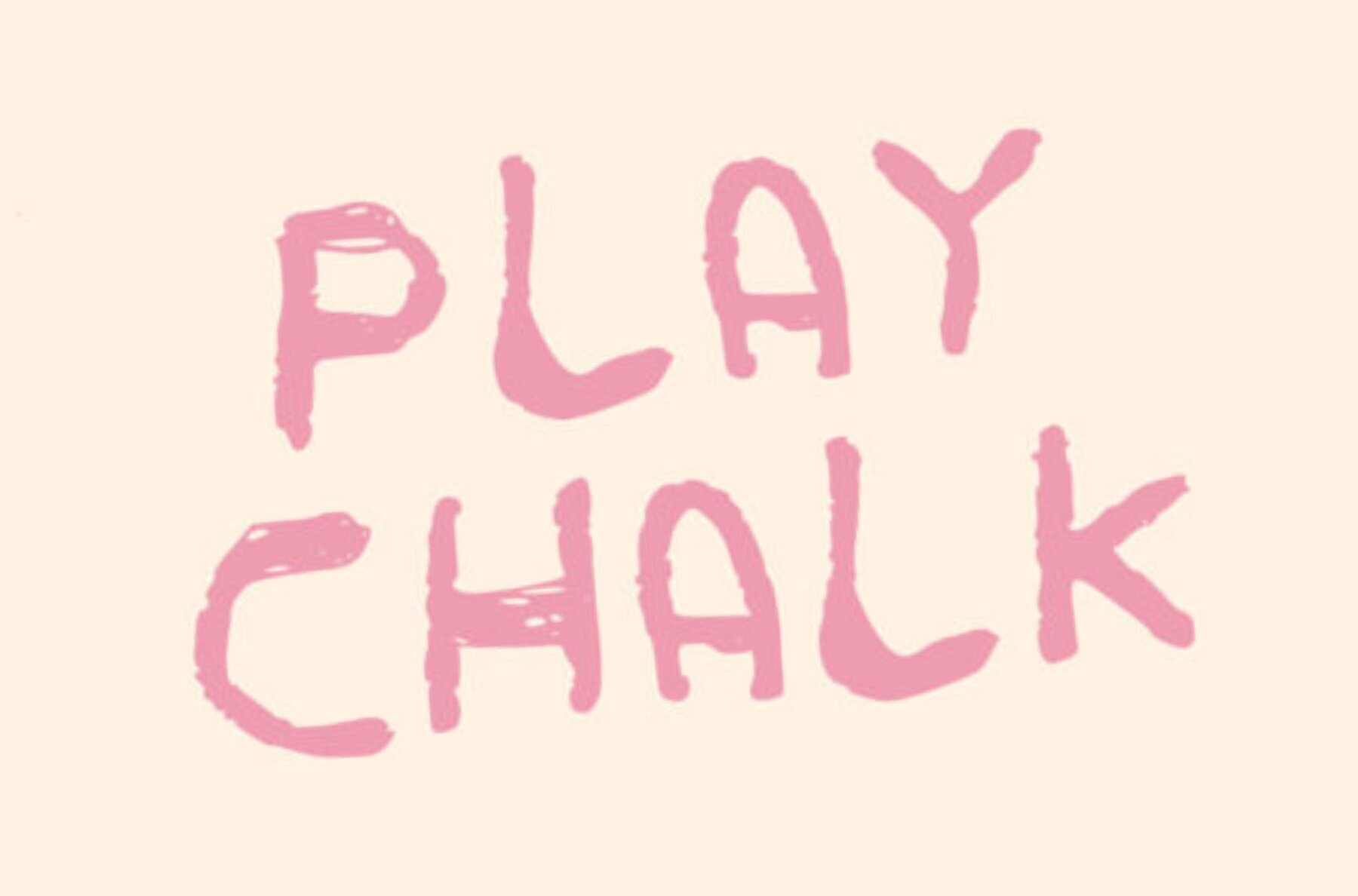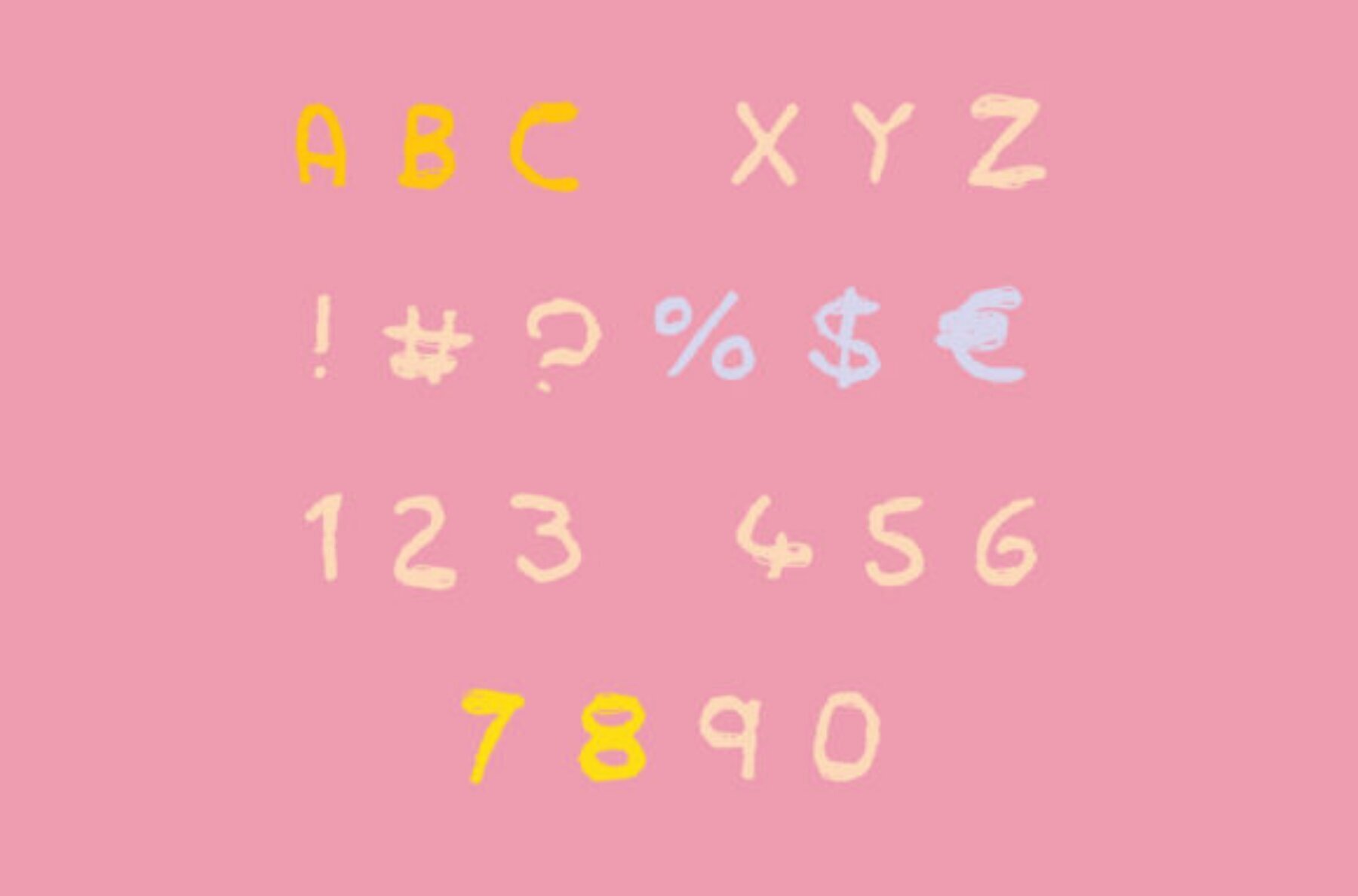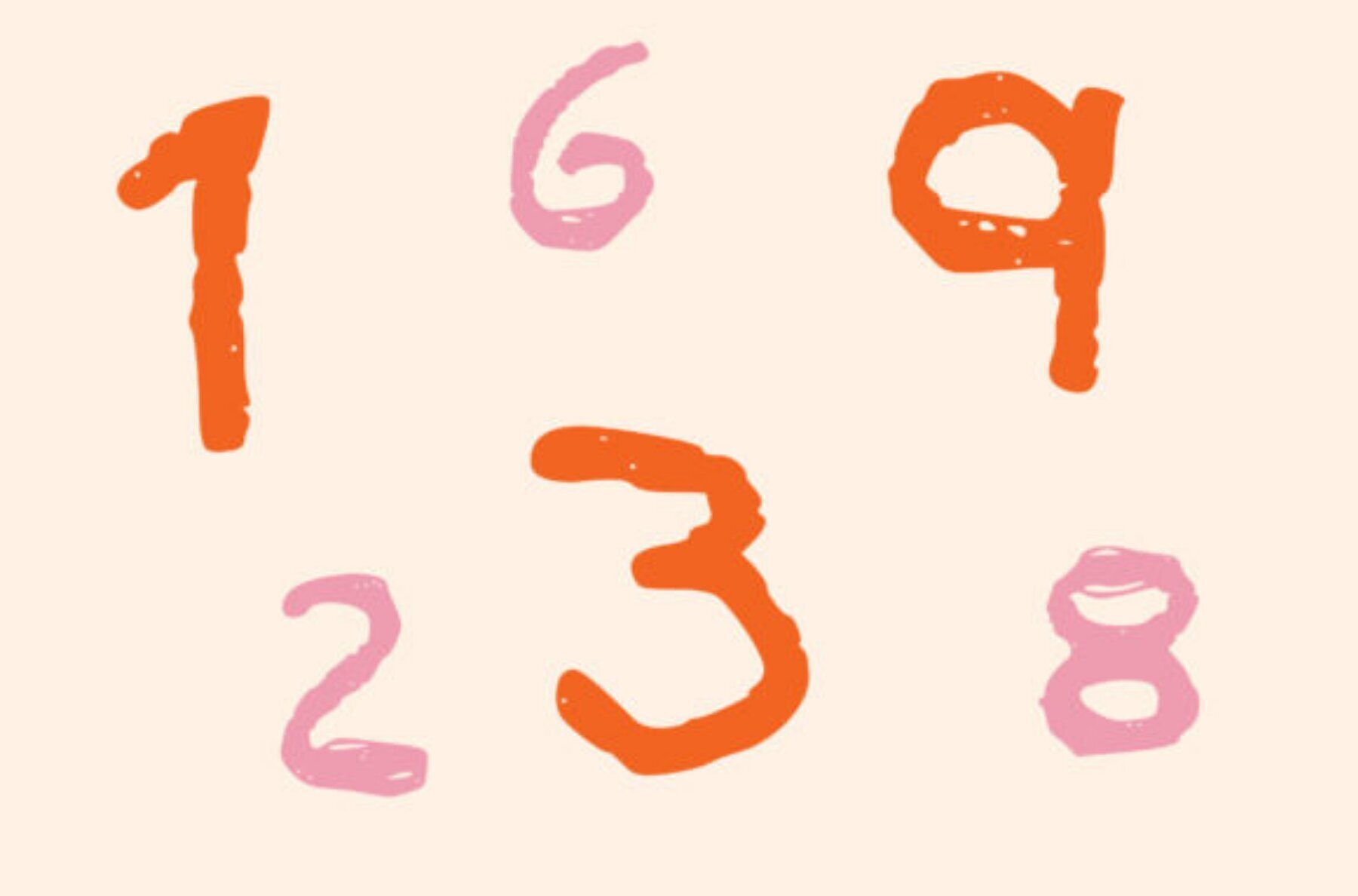
Play Chalk Font
Play Chalk
The Play Chalk font brings a delightful chalkboard effect to the beloved 'Play' font, adding a touch of whimsy to your design projects. Its playful, childlike design makes it an ideal choice for educational materials, school decorations, and artisan crafts. This typeface captures the essence of hand-drawn chalk strokes with rounded edges, offering a friendly and inviting appearance. Whether you're working on a school project, creating home-teaching materials, or designing a craft piece, Play Chalk provides a joyful and engaging typeface that brings warmth and character.Play Chalk Typeface